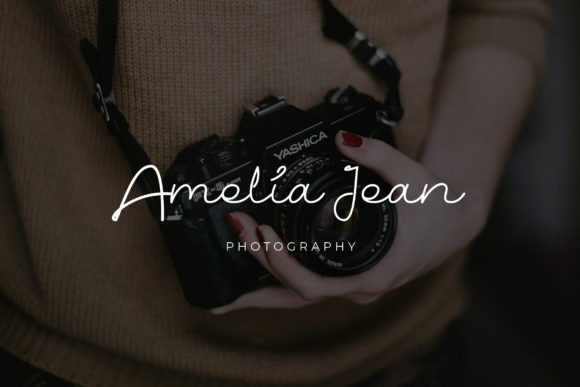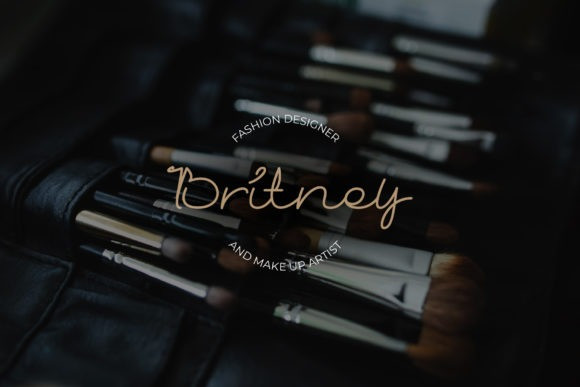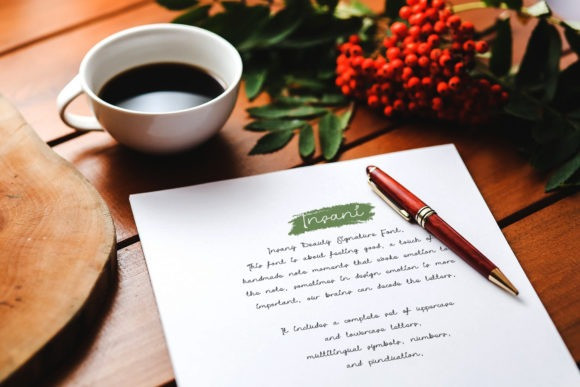
Insani Font
Insani Script Font is a beautiful and modern handwritten font. It can be used for various purposes such as logos, wedding invitations, headings, t-shirts, letterhead, signage, labels, news, posters, badges and so much more.